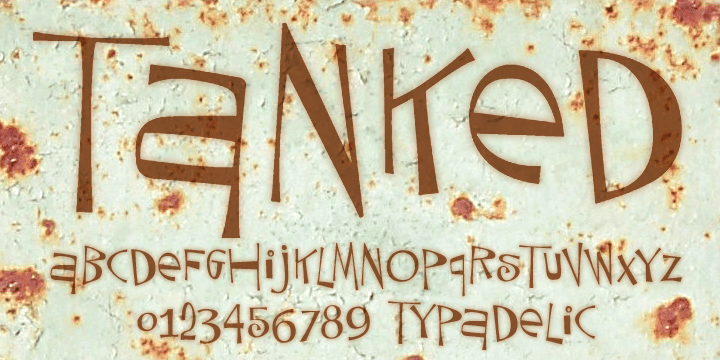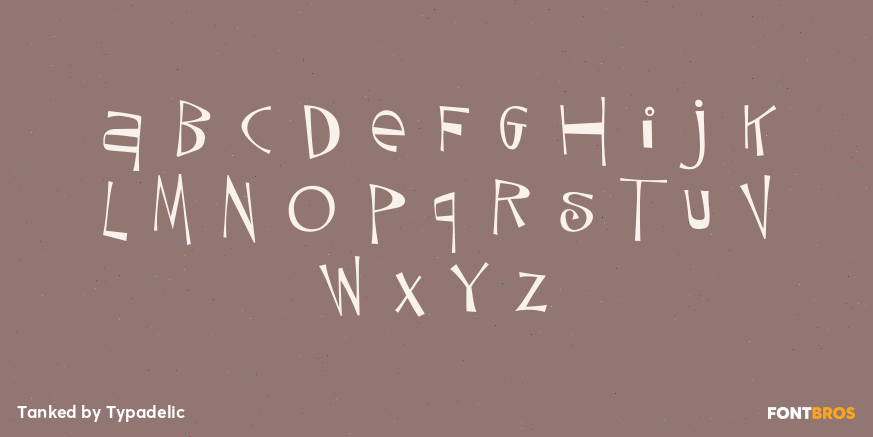
Tanked
Font Family by Typadelic
Tanked is one crazy and mixed up font, perfect for any fun project you can think of! Upper and lower case letters are dispersed throughout the font, no need to use caps...just bang away on your keyboard without regard for any typographic rules. Use as a headline font or short lines of body copy, scrapbooking titles/captions...whatever! Tanked is fun and will supply a burst of energy for your projects.